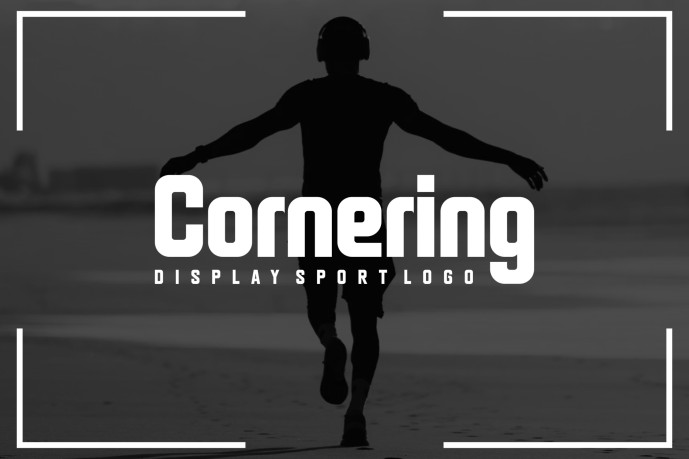
Cornering Font
Designer: ryomiscie
Cornering Font – Display Sport Logo is a bold and authentic display font. The font is suitable for any branding project like logo, esport, and many more. outstanding in a wide range of contexts.